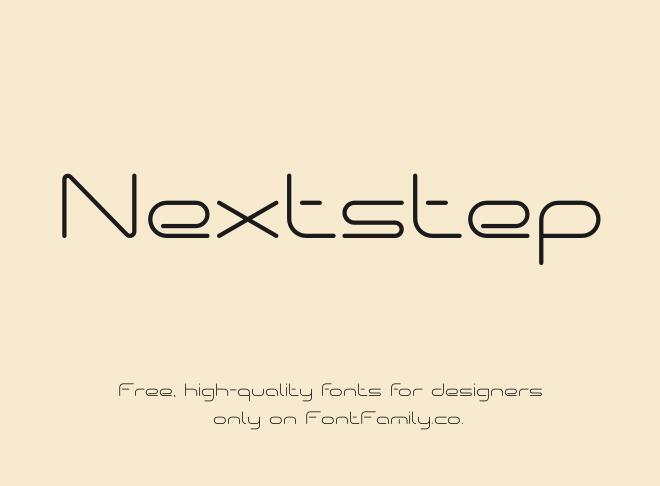
Nextstep Font
Nextstep Font is a modern, futuristic typeface that brings a sleek and contemporary feel to your designs. Perfect for display purposes, it adds a touch of sophistication and forward-thinking appeal to any project. Its clean lines and sharp edges are reminiscent of popular sans serif fonts, yet it presents a unique twist that sets it apart. Nextstep Font is versatile and adaptable, making it an excellent choice for branding, web design, and print media. Its readability makes it suitable for large blocks of text, while its distinctive style ensures that headlines and logos stand out. If you're looking for a font that combines the familiarity of sans serif with a modern, futuristic vibe, Nextstep Font is the ideal choice.